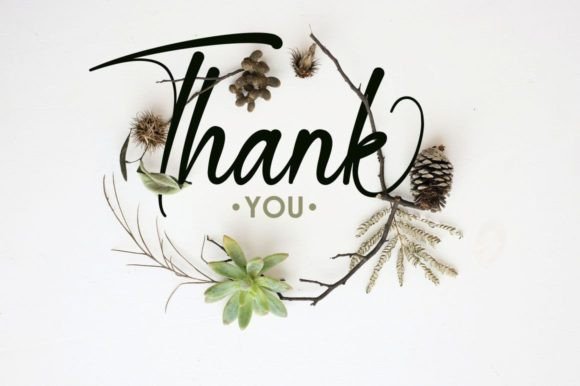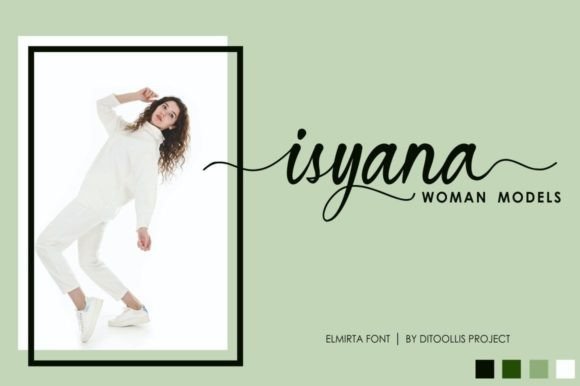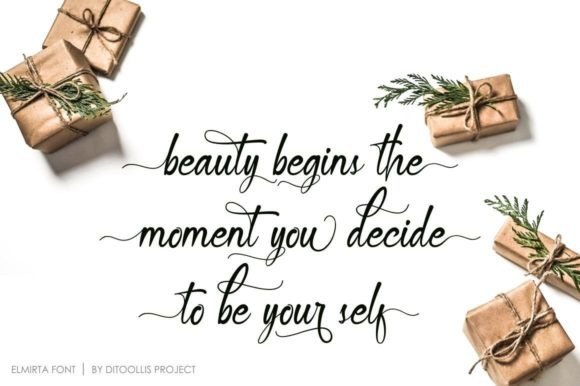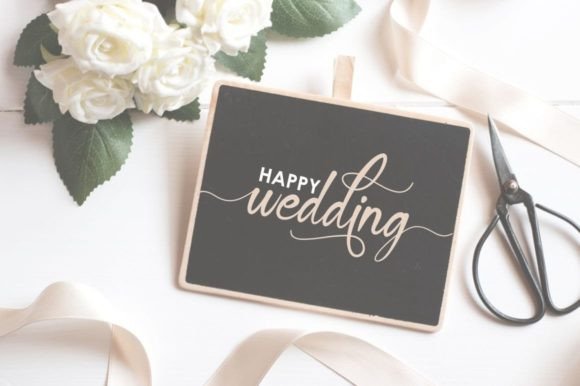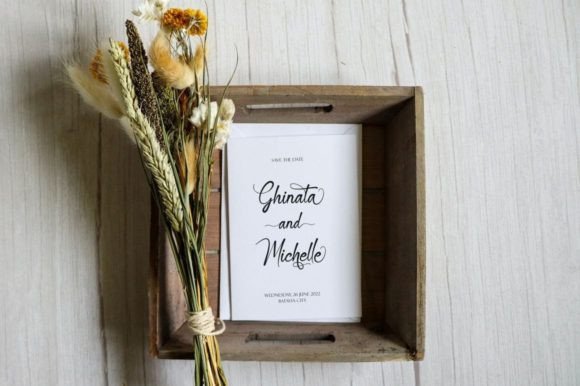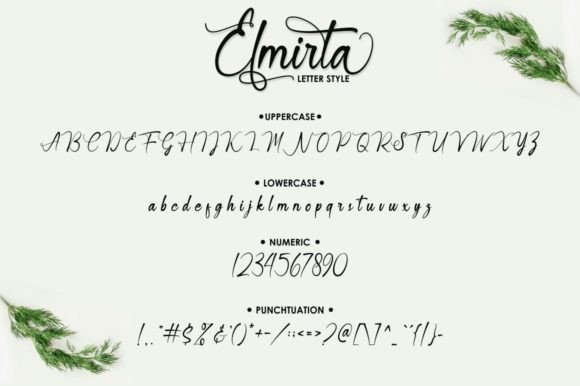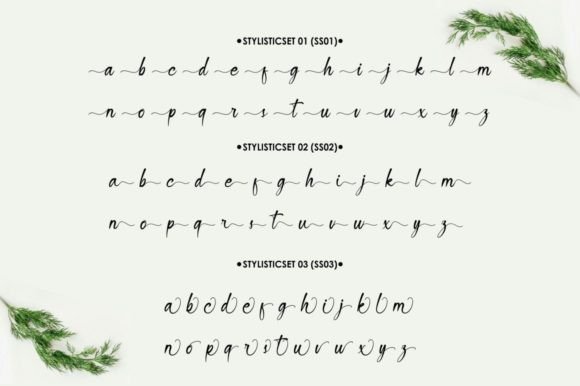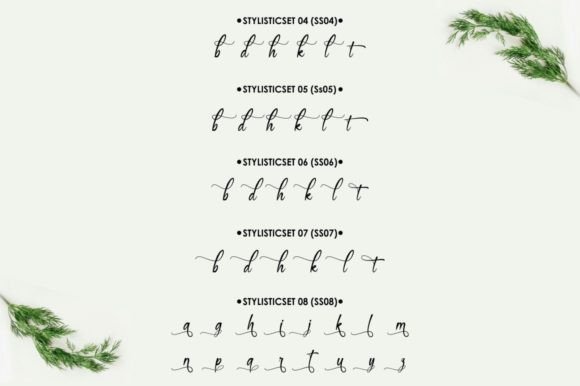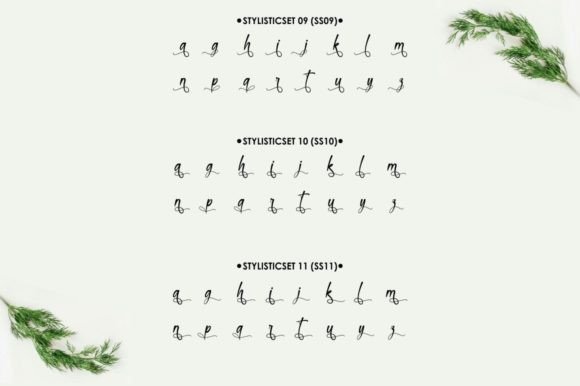
Elmirta Font
“Elmirta” is a stunning calligraphy script font that embodies modern elegance and sophistication. Its sleek and fluid design makes it a versatile choice for a wide range of design projects, adding a touch of glamour to any creative endeavor. This font stands out for its contemporary appeal and is an excellent option for designers seeking a stylish and chic typeface.
One of the key features that make “Elmirta” a standout choice is its suitability for **business cards**. Its graceful and flowing letterforms add a professional and polished touch to business card designs, making them visually striking and memorable. Whether used for corporate professionals, entrepreneurs, or creative individuals, “Elmirta” elevates the overall aesthetic of business cards, leaving a lasting impression on clients and associates.
In **logos**, “Elmirta” exudes sophistication and creativity. Its calligraphic elegance lends a unique personality to brand identities, making logos distinctive and recognizable. Whether used for fashion brands, beauty products, or upscale services, the font’s modern flair adds a luxurious element to the logo design, reinforcing the brand’s image and making it more appealing to the target audience.
For **covers**, “Elmirta” creates captivating and eye-catching designs. Whether for book covers, album covers, or magazine covers, the font’s contemporary calligraphy style adds an element of allure and intrigue. Its smooth and flowing characters enhance the overall composition, making covers visually appealing and enticing to viewers.
In the realm of **comics**, “Elmirta” brings a touch of elegance to dialogue and narration. Its modern calligraphic script adds depth and personality to comic characters, creating a visually engaging reading experience. The font’s readability ensures that the dialogue is clear and expressive, enhancing the storytelling aspect of comics and graphic novels.
For **invitations**, “Elmirta” sets a romantic and chic tone. Whether for weddings, parties, or other special events, the font’s calligraphic beauty adds a touch of glamour to invitations. Its delicate swashes and glyphs create a sense of sophistication, making invitations exquisite and elegant. The font’s PUA encoding allows for easy access to these decorative elements, enabling designers to create customized and intricate invitation designs effortlessly.
Additionally, “Elmirta” is an excellent choice for **social media graphics**. Whether used for posts, quotes, or promotional content, the font’s modern calligraphy style adds a touch of elegance to social media visuals. Its versatility allows it to complement various themes and aesthetics, making social media profiles more visually appealing and cohesive.
In summary, “Elmirta” is more than just a font; it’s a design asset that brings modern sophistication to a wide range of applications. Its versatility in business cards, logos, covers, comics, invitations, and social media graphics makes it a go-to choice for designers looking to infuse their projects with a touch of contemporary elegance. With its PUA encoding, accessing the font’s glyphs and swashes is effortless, allowing designers to create customized and visually stunning designs with ease. Embrace the beauty of “Elmirta” and let its modern calligraphy script enhance your designs, making them truly exquisite and impactful.